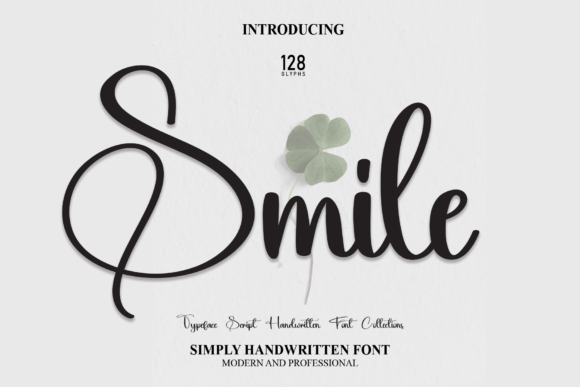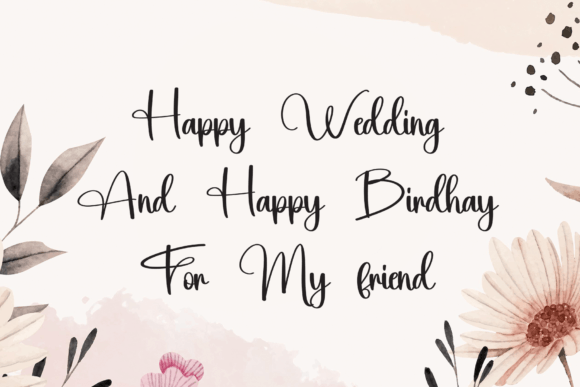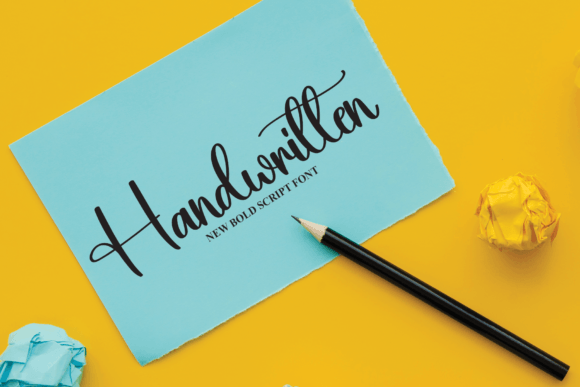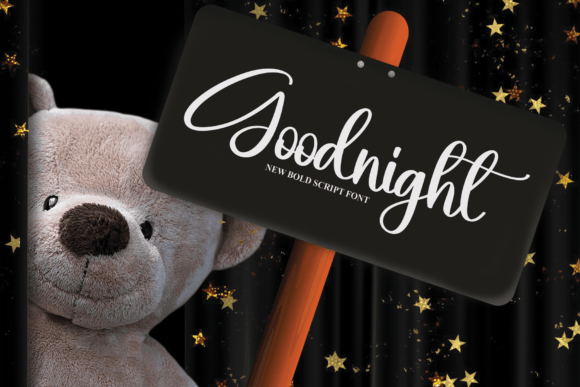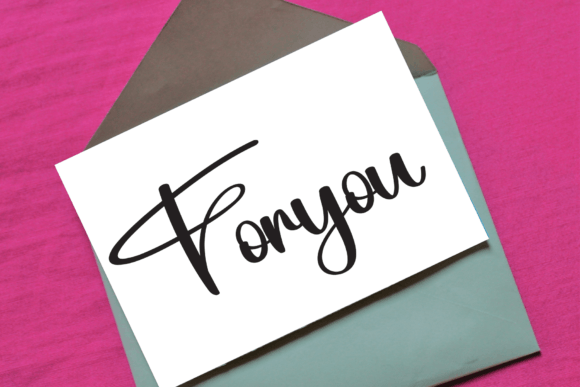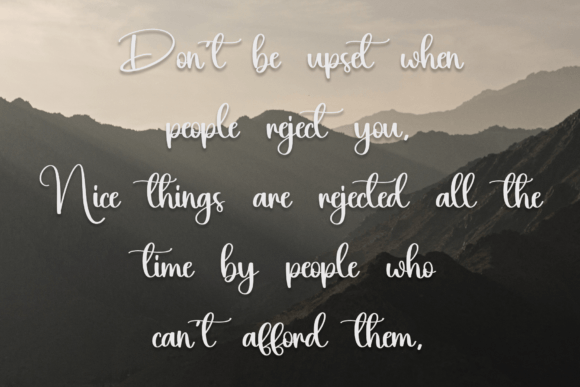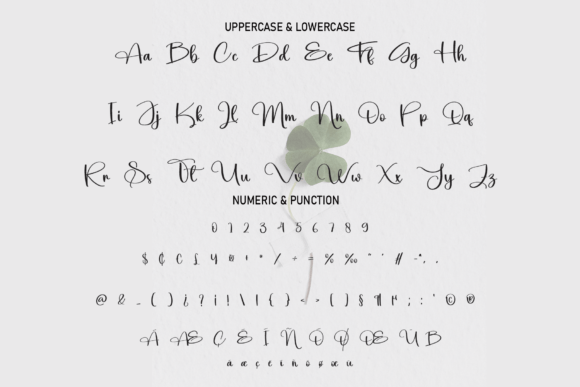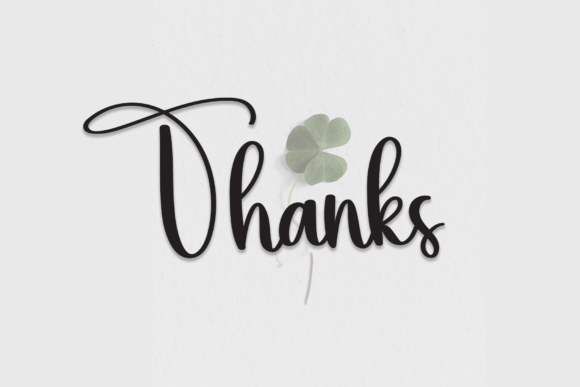
Smile Font
About Smile Font
“Smile” is a font that offers gorgeous typography, making it perfect for a wide variety of projects. Its versatile design makes it suitable for logos and branding, invitations, stationery, wedding designs, social media posts, advertisements, product packaging, product designs, labels, photography, watermarks, special events, and any project that requires a handwriting touch.
With its elegant and expressive letterforms, “Smile” adds a touch of sophistication and creativity to your designs. Whether you’re creating a brand identity, designing wedding invitations, or crafting social media posts, this font allows you to infuse your projects with a unique handwritten style. Its ability to convey a sense of warmth and friendliness makes it ideal for creating engaging and visually appealing content across various mediums.
Incorporating “Smile” into your projects provides you with the flexibility to explore different creative avenues. Its handwritten taste adds a personalized and human touch to your designs, making them more relatable and approachable to your audience. Whether you’re working on digital or print materials, “Smile” enhances the overall visual appeal, making your projects memorable and visually striking.
Embrace the versatility and charm of “Smile” and notice how it elevates the typographic aspect of your designs. Its ability to enhance logos, invitations, social media posts, and more, makes it a valuable asset for designers seeking a font that exudes creativity and authenticity. With “Smile,” your projects are sure to captivate your audience and leave a lasting impression with its elegant and handwritten aesthetic.